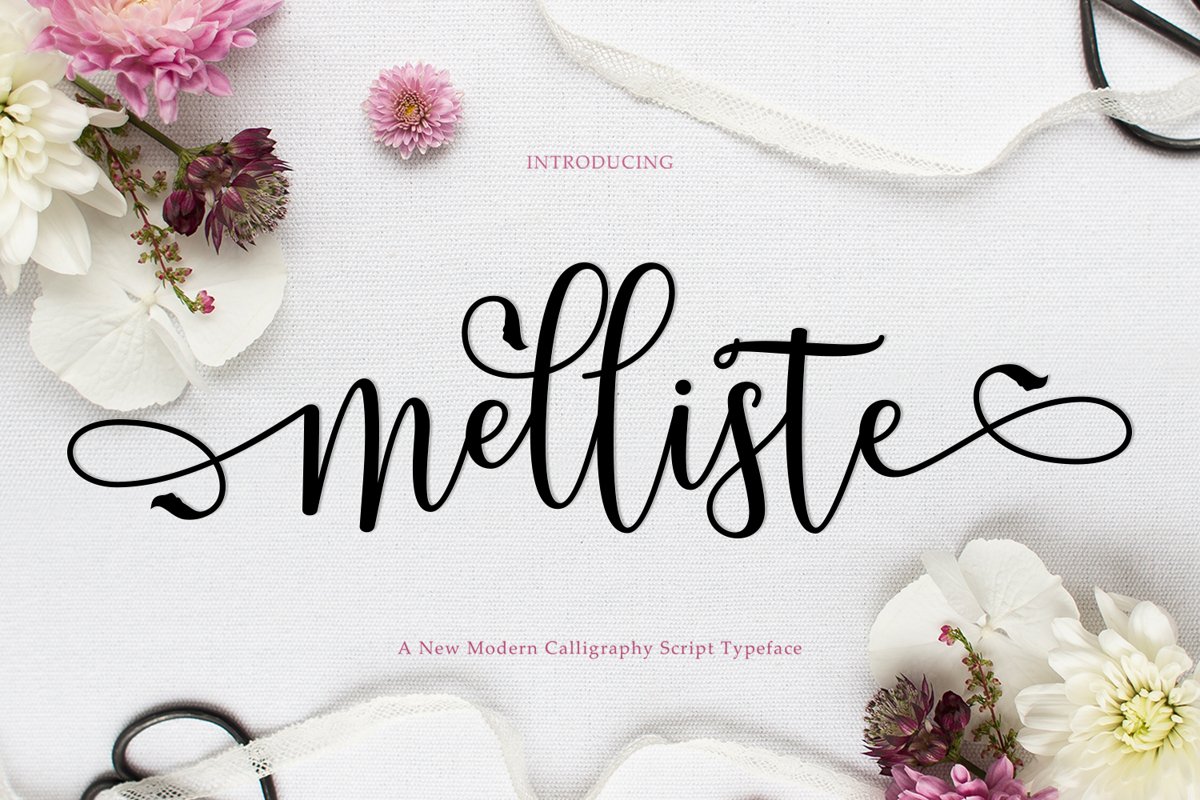
Melliste Script | A Font Love Story
Introducing
The new beautiful Melliste Script
Melliste Script is a natural handwritten font, this font is perfect for logos, invitations, stationery, wedding designs, social media posts, advertisements, product packaging, product designs, labels, photography, watermarks, special events or whatever.
Melliste Script comes with 522 flying machines. Alternative characters are divided into several Open Type features such as Swash, Style Collections, Alternative Styles, Contextual Alternatives. The Open Type feature can be accessed using Open Type savvy programs such as Adobe Illustrator, Adobe InDesign, Adobe Photoshop Corel Draw X version, and Microsoft Word. And this font has provided a Unicode PUA (special code font). so all alternative characters can be easily accessed in full by craftsmen or designers.